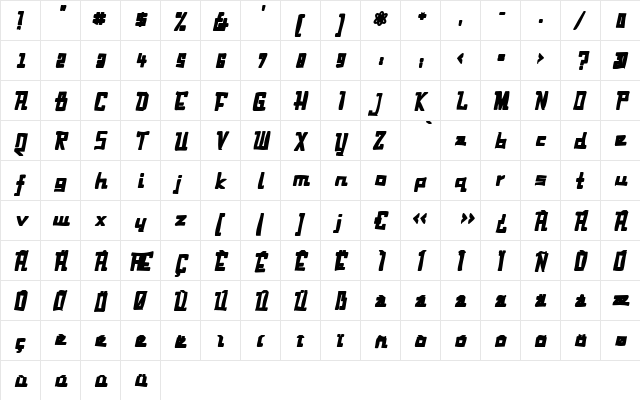
Fabian Ink Italic
Design Context for Fabian Ink Typeface
Fabian Ink is a composed and adaptable typeface that performs quietly and consistently across a wide range of design contexts. Its italic angle brings a sense of urgency and motion to the letterforms.